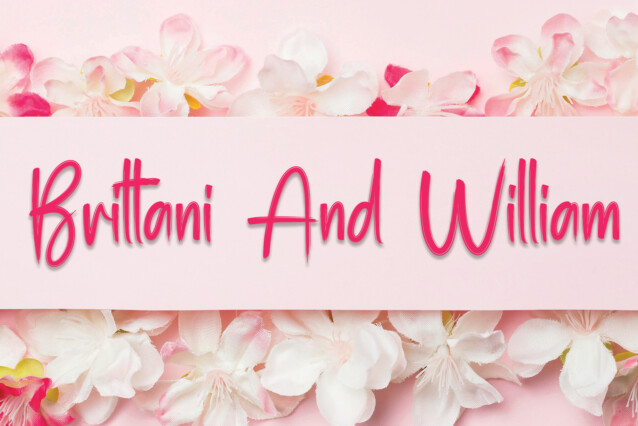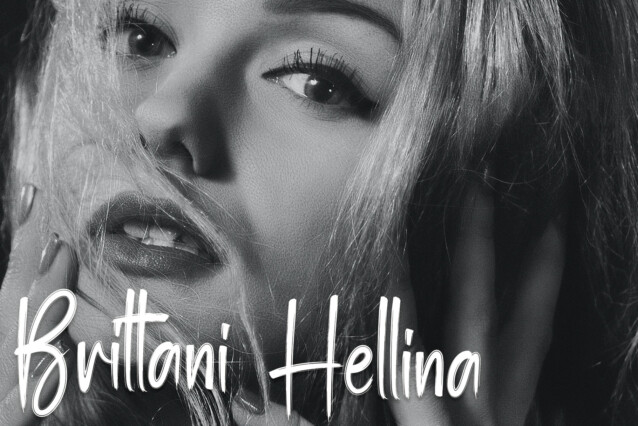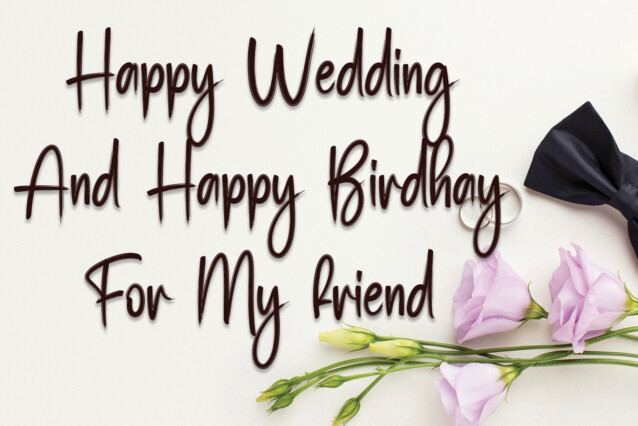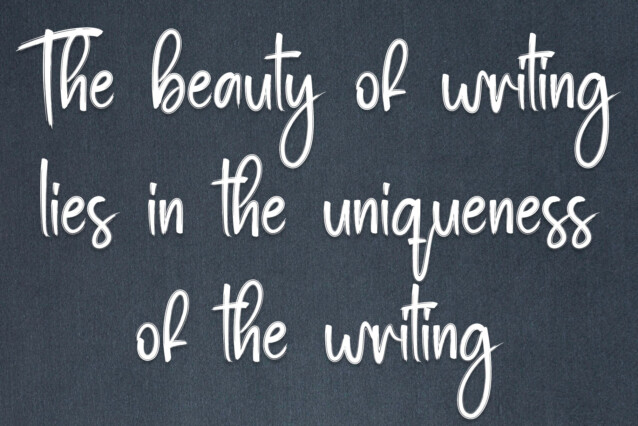
Christmas Starlight Script Font
Christmas Starlight‘s latest style letters are perfect for wall displays, wedding invitations, social media post logos, advertisements, product packaging, product designs, labels, photography, watermarks, invitations, stationery, and any project that requires a handwritten taste.